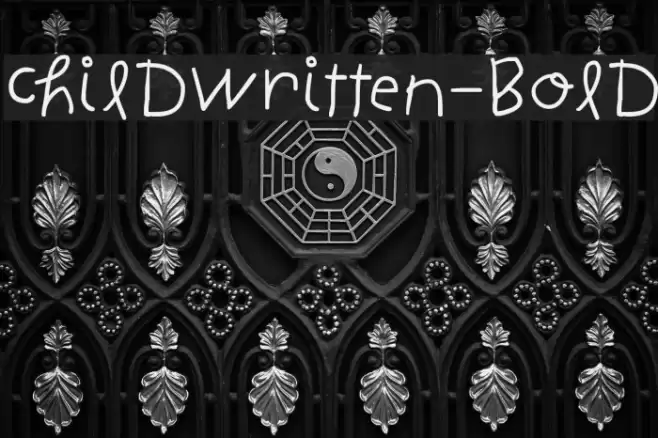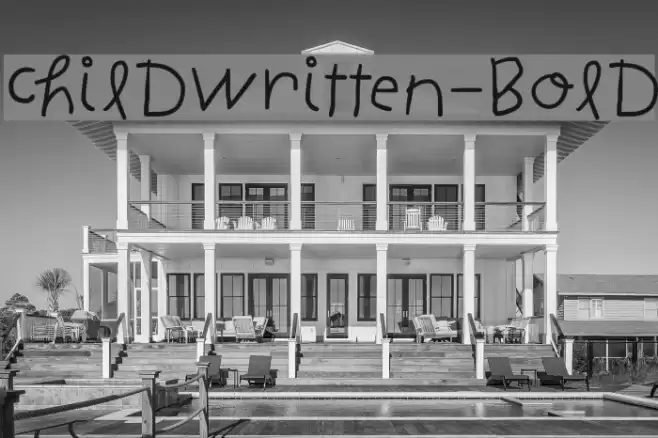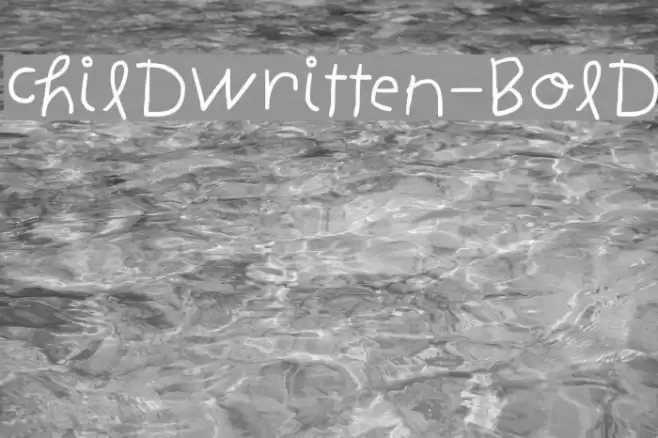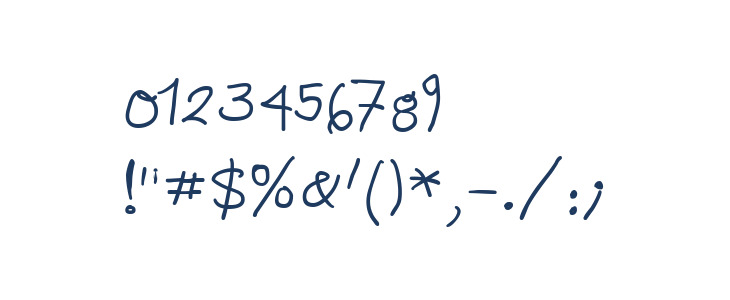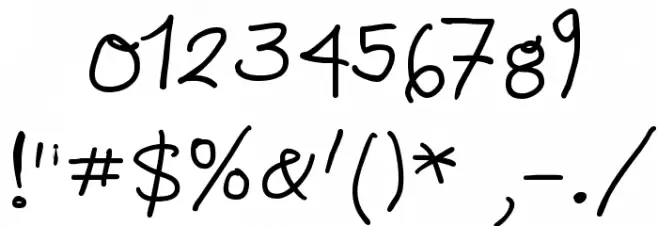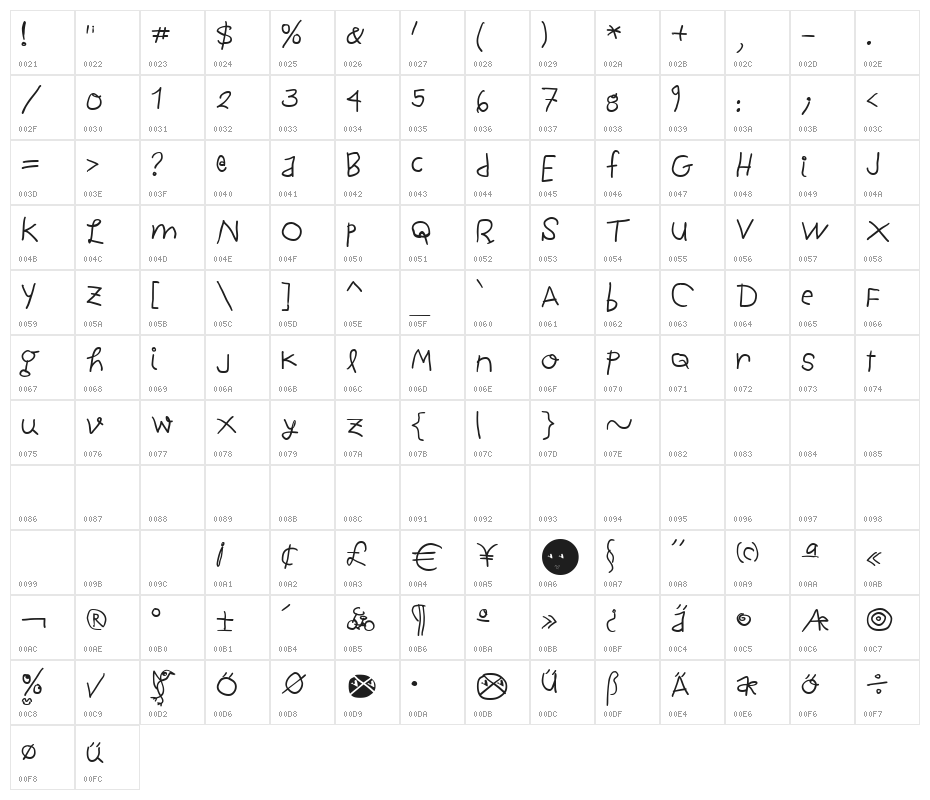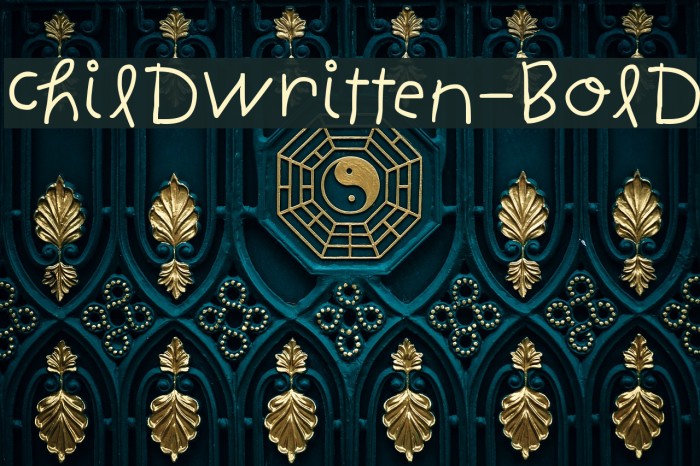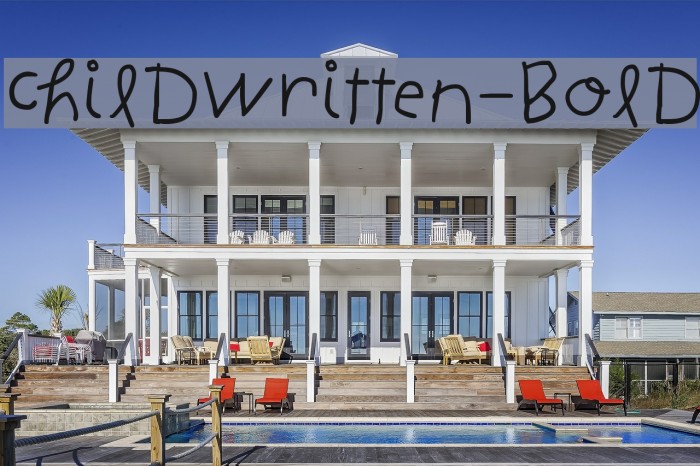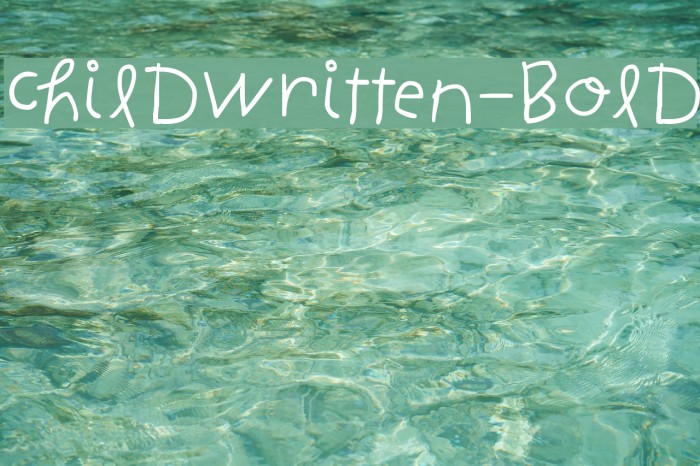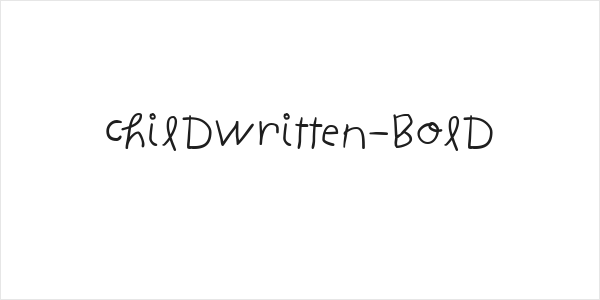
ChildWritten-Bold Font
ChildWritten-Bold Description
This playful and whimsical font mimics the appearance of a child's handwriting, characterized by its irregular and slightly uneven strokes. The letters are rounded and have a casual, informal feel, making it ideal for projects that require a touch of innocence or creativity. The uppercase and lowercase letters maintain a consistent style, with a slight variation in size and shape that adds to the handwritten charm. Numbers and special characters are included, following the same playful aesthetic. This font is perfect for designs that aim to capture a youthful or playful essence.
A playful, handwritten-style font with a childlike, whimsical appearance from Uncategorized fonts.
- Proposed Projects: Ideal for children's books, educational materials, playful branding, and creative invitations.
- Overall Style: Playful, Whimsical
- Use Case: Headlines, Logos, Creative projects